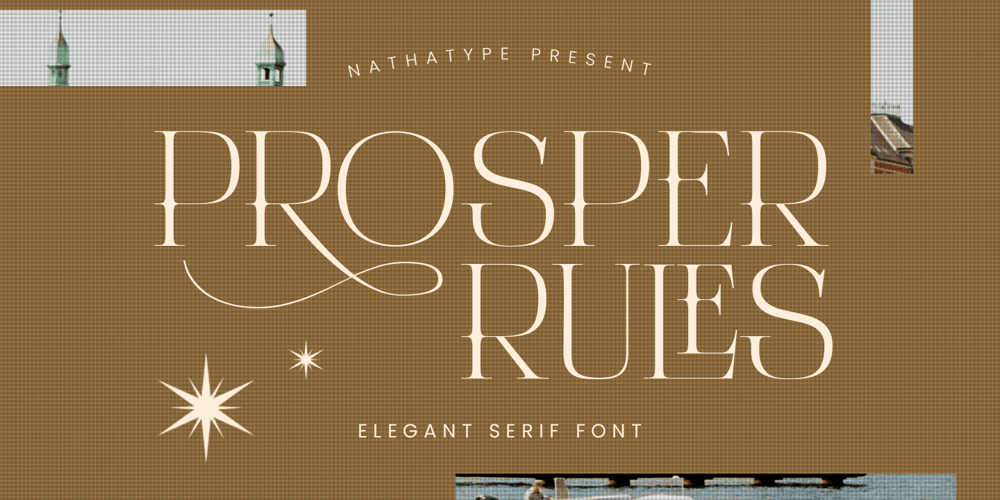
Prosper Rules Font Family was designed by Donis Miftahudin and published by Nathatype. Prosper Rules contains 1 styles and family package options. Prosper Rules is a distinguished serif font that exudes sophistication and refinement. With its timeless serifs and carefully crafted extended lines, this typeface brings an air of elegance to your designs. The defining feature of Prosper Rules lies in its extended lines, gracefully integrated into select letters. These extended lines add a touch of distinction and visual interest, elevating the font’s overall composition. Each letter is meticulously designed to strike the perfect balance between tradition and modernity. Inspired by classic typographic elements, Prosper Rules captures the essence of timeless beauty. The serifs, with their subtle flares, provide a sense of stability and sophistication. The extended lines offer a contemporary twist, infusing the font with a touch of creativity and uniqueness. The uppercase letterforms of Prosper Rules are meticulously crafted, showcasing clean lines and well-balanced proportions. The extended lines, thoughtfully placed in specific letters, create a sense of flow and purpose.Features: Ligatures Stylistic Sets Multilingual Supports PUA Encoded Numerals and Punctuations Prosper Rules fits for headings, titles, logos, and any design project that seeks to make a refined and memorable statement. Whether you’re working on editorial layouts, branding materials, invitations, or any project that demands a touch of sophistication, this font will lend a sense of timeless beauty. It is particularly well-suited for applications related to luxury, fashion, fine arts, and high-end products. Find out more ways to use this font by taking a look at the font preview.Thanks for purchasing our fonts. Hopefully, you have a great time using our font. Feel free to contact us anytime for further information or when you have trouble with the font. Thanks a lot and happy designing.